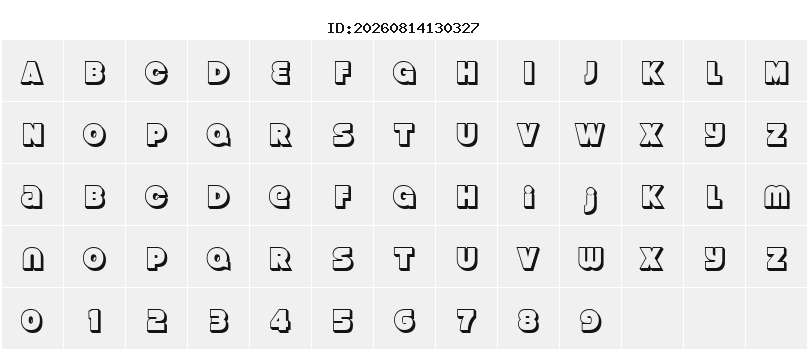
Strenuous 3D Preview
• Font Name: Strenuous 3D
• Designer: Ray Larabie
About Strenuous 3D.ttf
Strenuous 3D.ttf is a modern, elegant sans-serif font designed for ultimate readability and visual harmony. Perfect for branding, headlines, web design, and print materials.